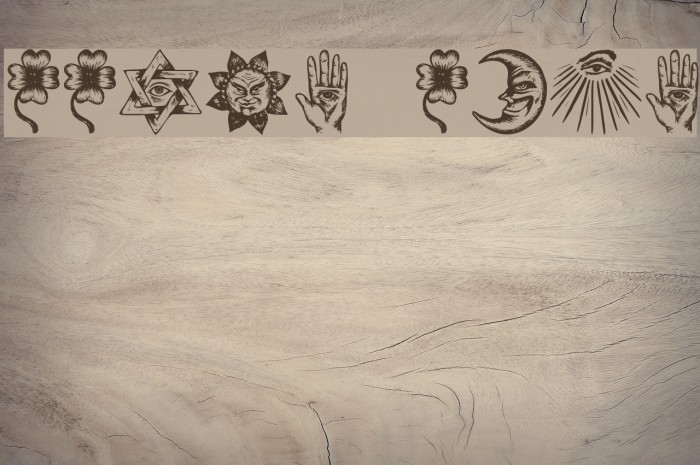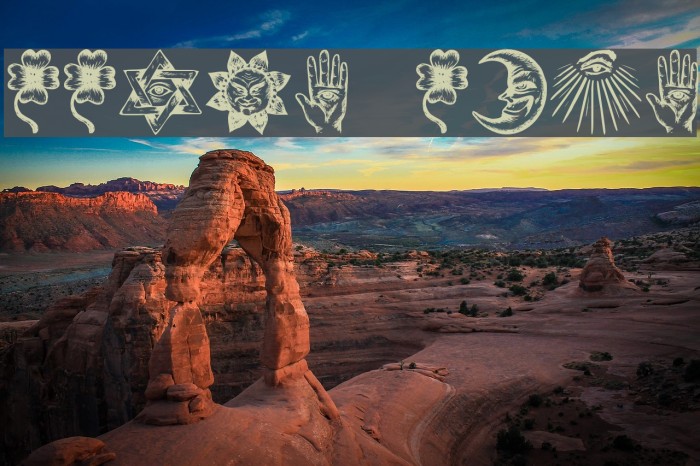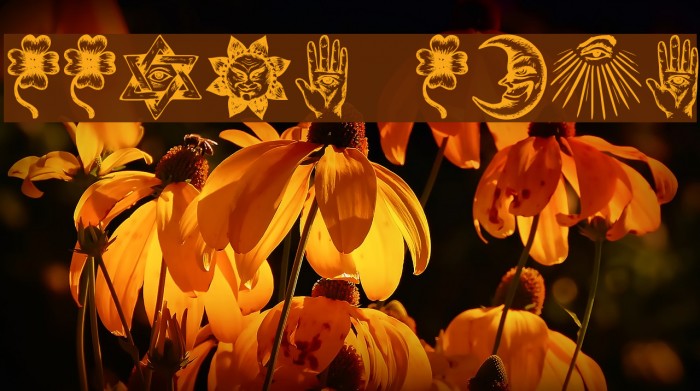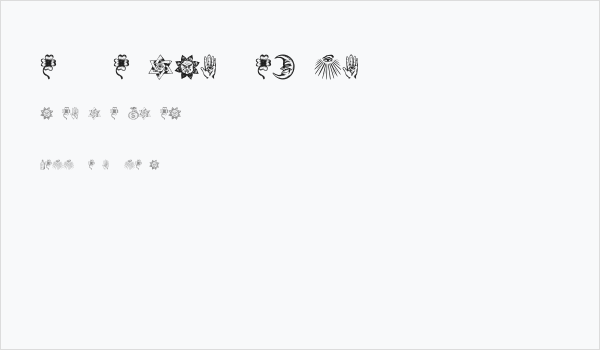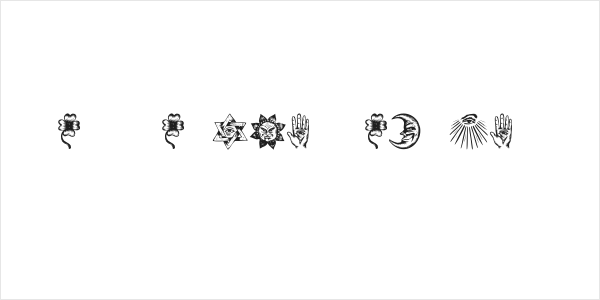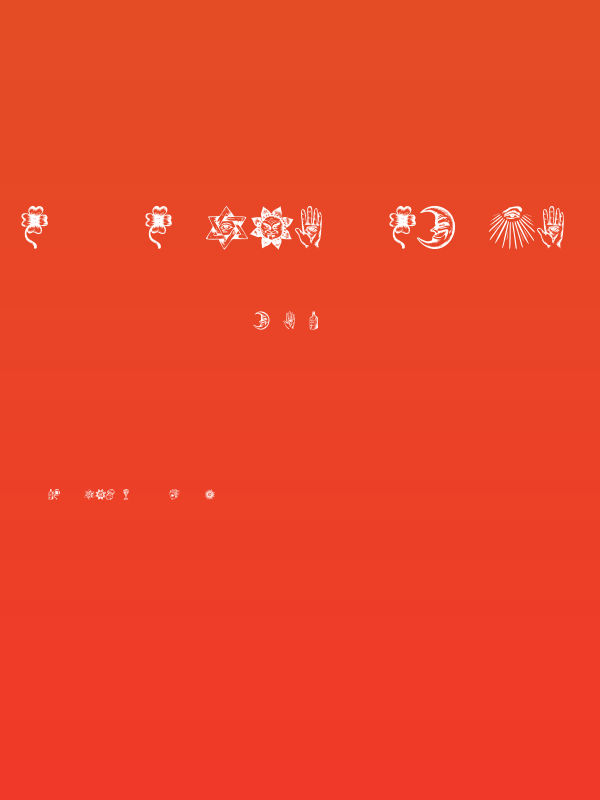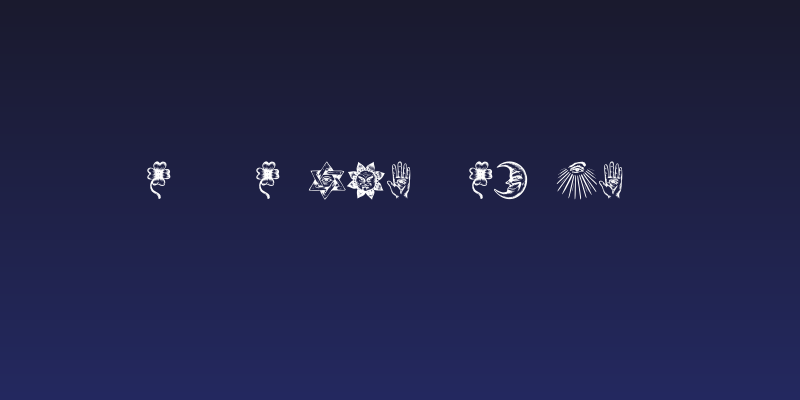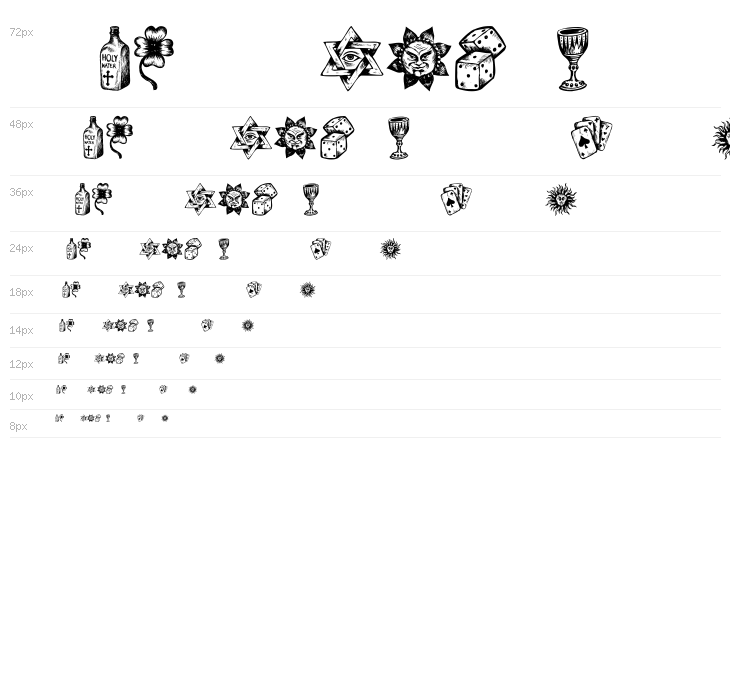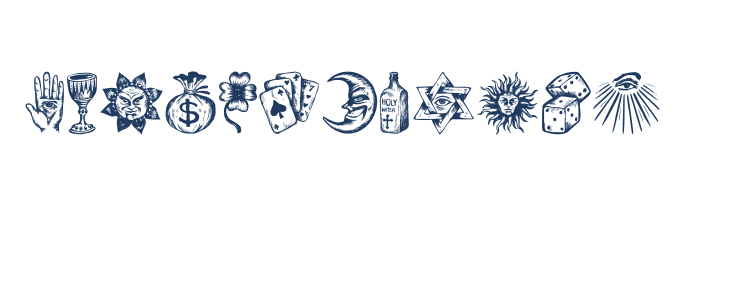
Esoterica Regular Font
Esoterica Regular Description
A decorative dingbat font featuring detailed, hand-drawn illustrations of mystical and esoteric symbols such as hands, chalices, stars, money bags, playing cards, moons, bottles, dice, and eyes, rendered in a vintage tattoo style with bold outlines and intricate shading.
| Overall Style | Decorative, Vintage, Mystical |
| Use Case | Logos, Posters, Decorative elements, Themed graphics |
| Proposed Projects | Tarot cards, mystical branding, posters, album covers, event invitations, decorative borders. |